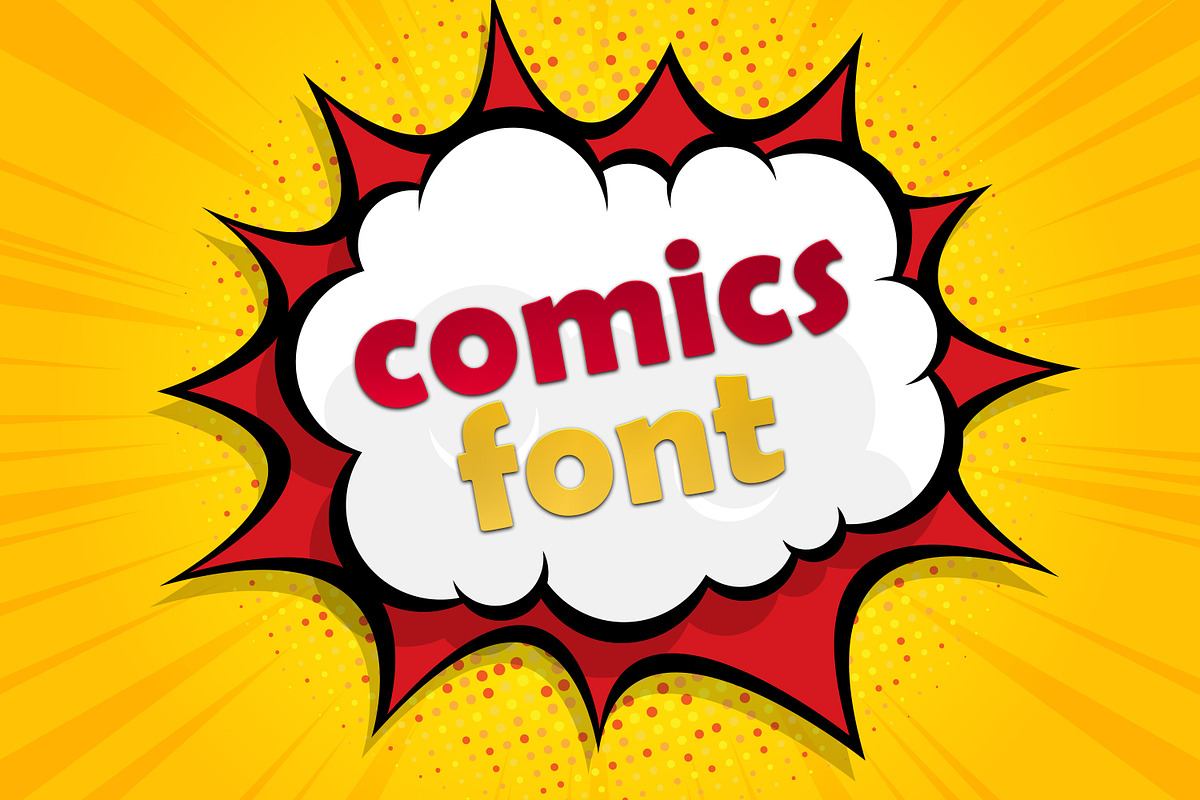
Comics Font Free Download is a bold and playful typeface inspired by the golden age of comic books. With its clear, expressive style and high readability, this font is perfect for speech bubbles, character dialogue, comic panels, children’s books, and any design that needs a punch of storytelling fun!
Comics Font Free Download captures the spirit of classic comic lettering—chunky, rounded, and full of personality. Whether you’re designing a retro superhero zine, a webcomic, or vibrant educational materials, this font adds that nostalgic comic book charm with modern polish.
Its bold presence makes it easy to read in fast-paced scenes, while its friendly curves make it perfect for both action-packed and light-hearted moments. It also pairs beautifully with SFX fonts like "BAM!" or "ZAP!" for the full comic strip effect.
Give your designs a voice that leaps off the page with Comics Font—because every great design deserves a great caption!